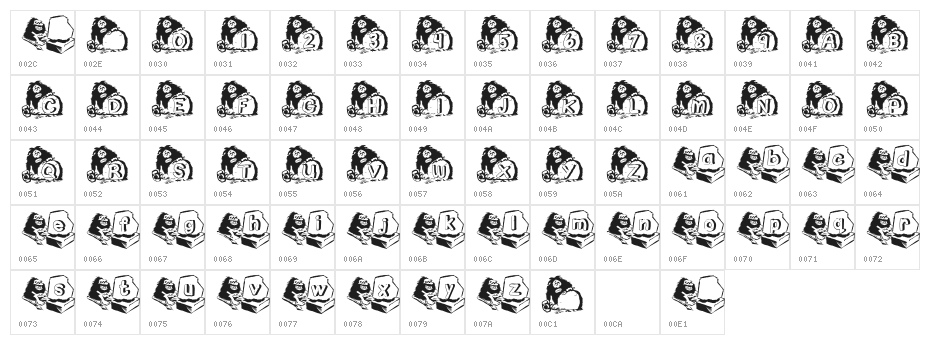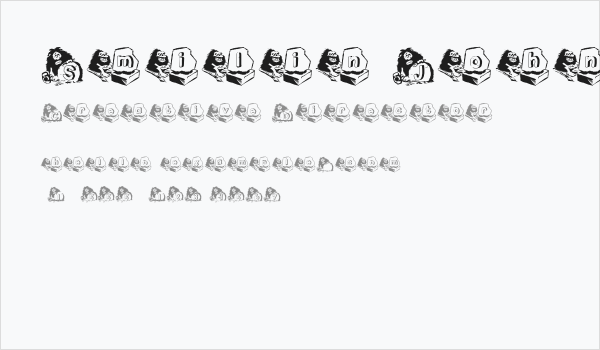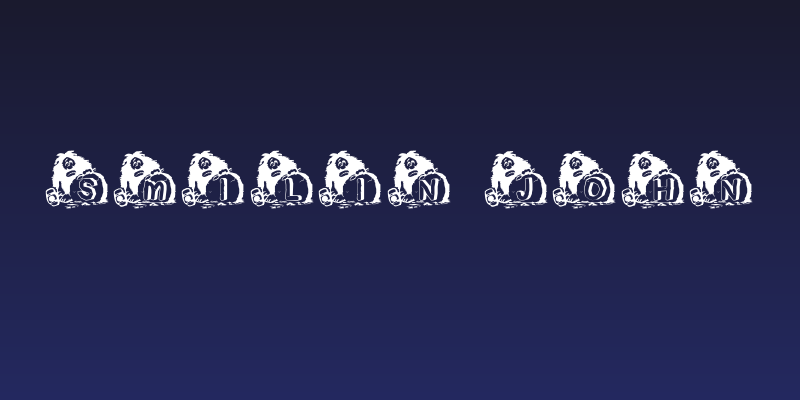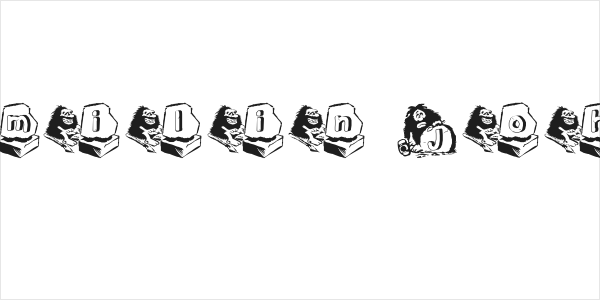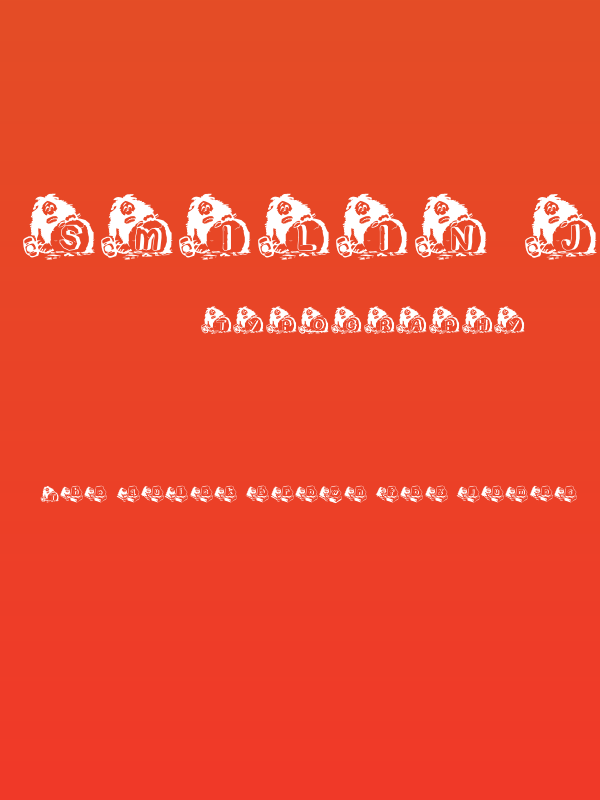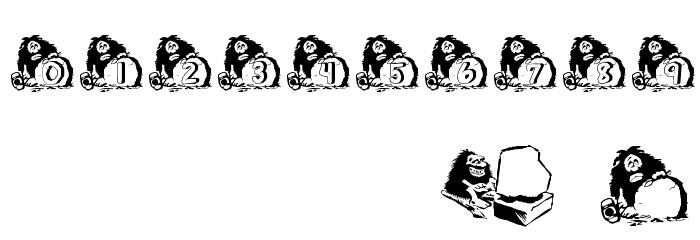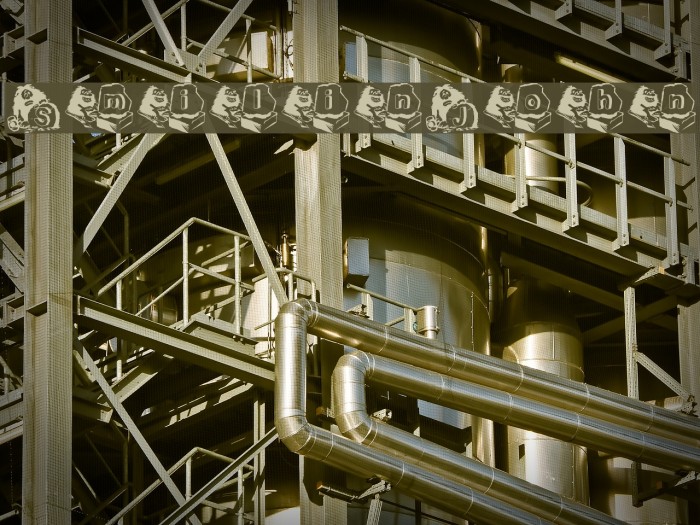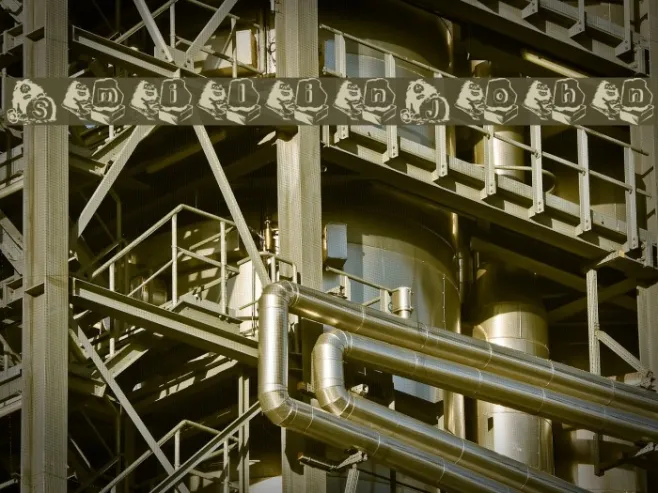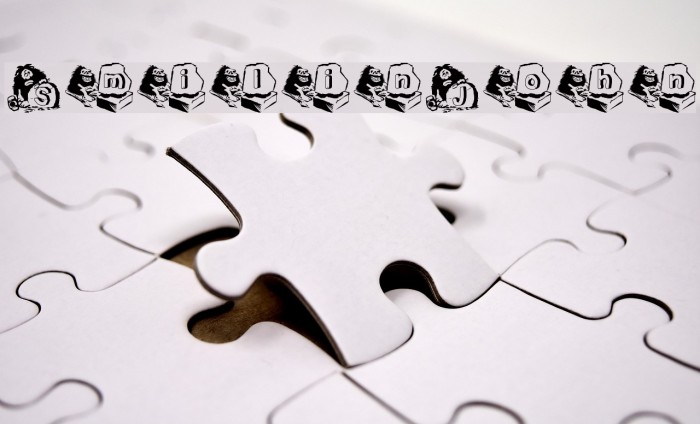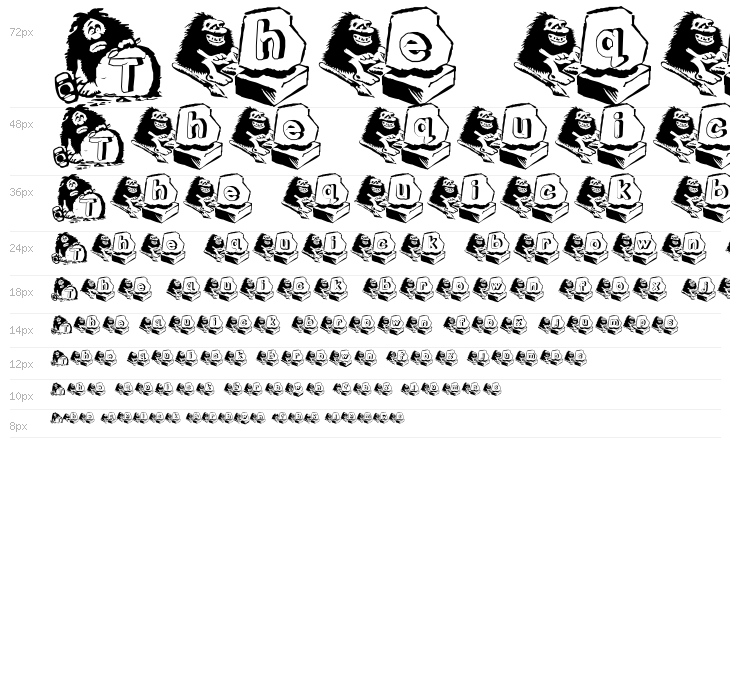
Smilin_John Font
Smilin_John Description
This playful and whimsical font features characters embedded within cartoonish illustrations of a smiling character, adding a unique and humorous touch to each letter and number. The design is highly decorative, with each character appearing to be part of a scene, which makes it stand out for its creativity and originality. The font is not suitable for body text due to its intricate design but can be a great choice for projects that require a fun and engaging visual element. The characters are bold and have a consistent width, with normal spacing between them. The contrast in stroke thickness is medium, providing a balanced look despite the detailed illustrations.
| Proposed Projects | Ideal for children's books, playful posters, comic strips, and novelty items. |